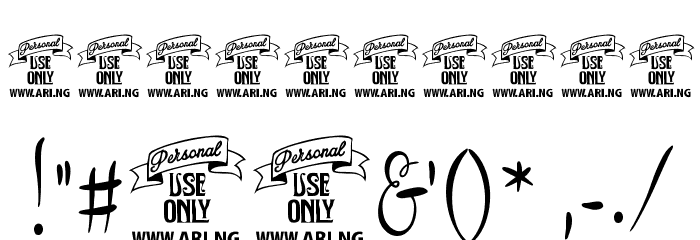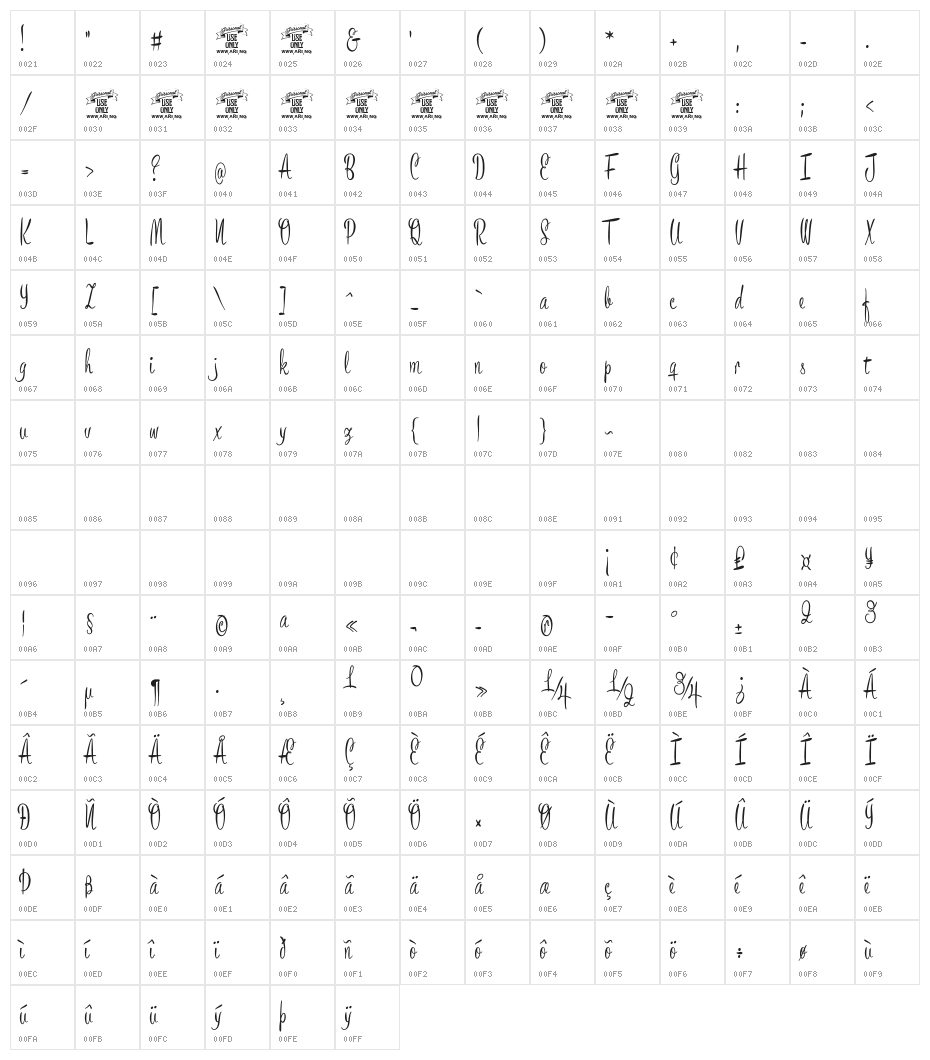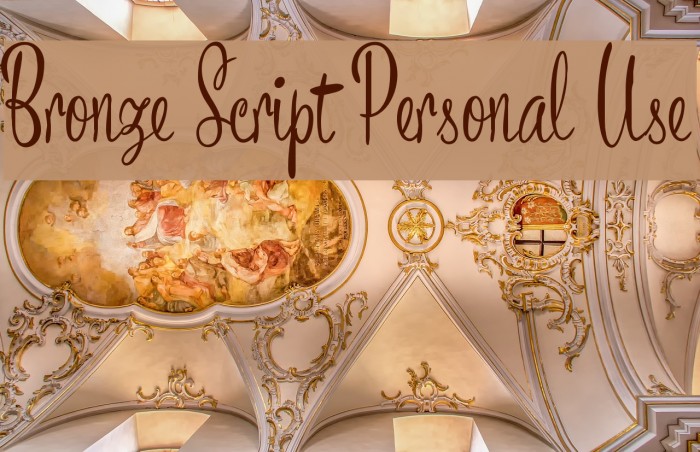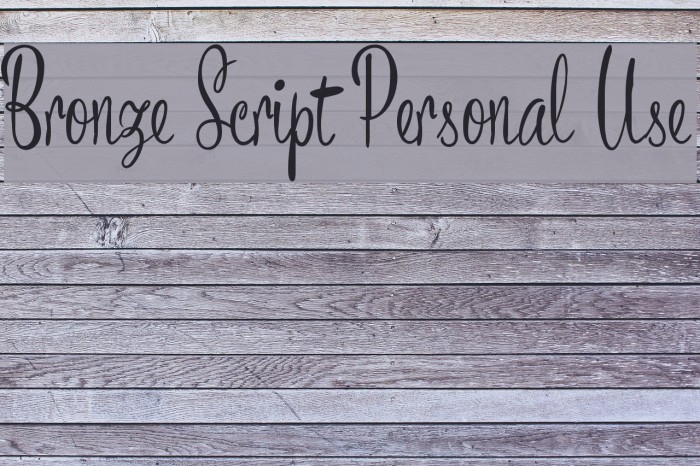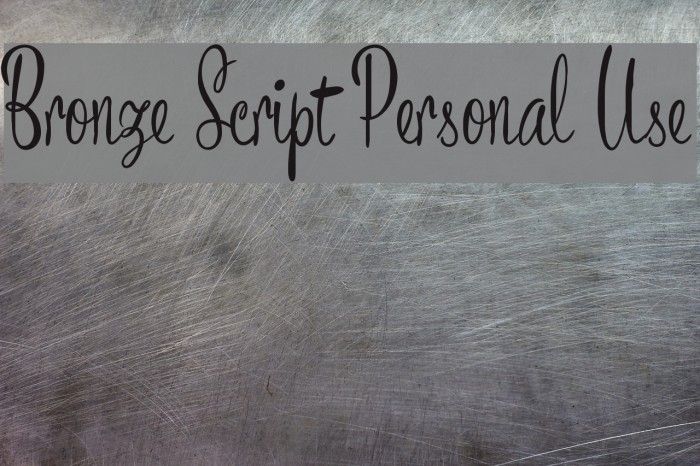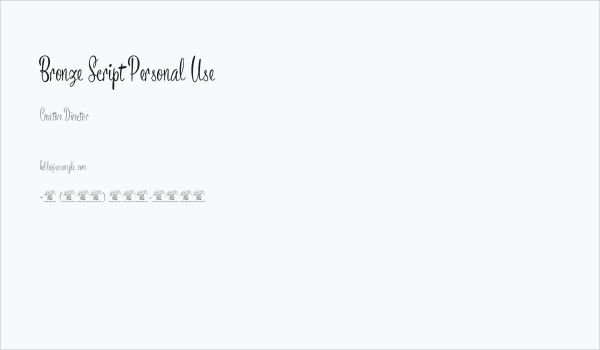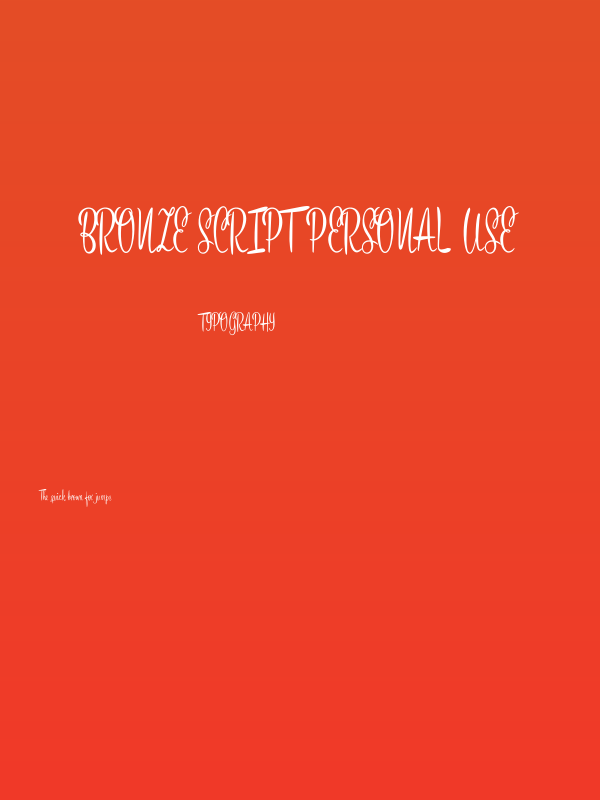
Bronze Script Personal Use Font
Bronze Script Personal Use Description
This font features a flowing, cursive style that mimics elegant handwriting. The uppercase letters are tall and slightly narrow, with smooth curves and a consistent stroke width that gives a graceful appearance. The lowercase letters maintain a similar style, with some letters featuring loops and flourishes that add to the overall decorative feel. The numbers and special characters are designed to match the script style, ensuring a cohesive look across all text. This font is ideal for projects that require a personal, handwritten touch, such as invitations, greeting cards, or branding materials.